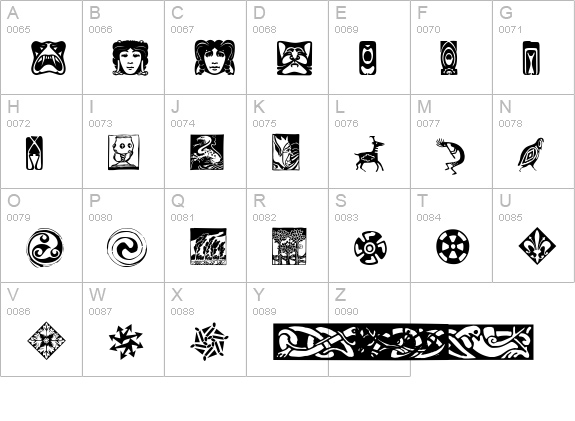
Artfonts Sampler Font Details
Artfonts Sampler font is a stunning display typeface that combines elegance and creativity in a unique way. Featuring intricate details and stylish curves, this font is perfect for adding a touch of sophistication to your designs. With its versatile character set and eye-catching appearance, Artfonts Sampler is sure to make a statement in any project. What's even better is that Artfonts Sampler font is available for free download at FontsMarket.com. Now you can easily enhance your creations with this beautiful typeface without any cost. Don't miss out on the opportunity to elevate your designs with the Artfonts Sampler font today!